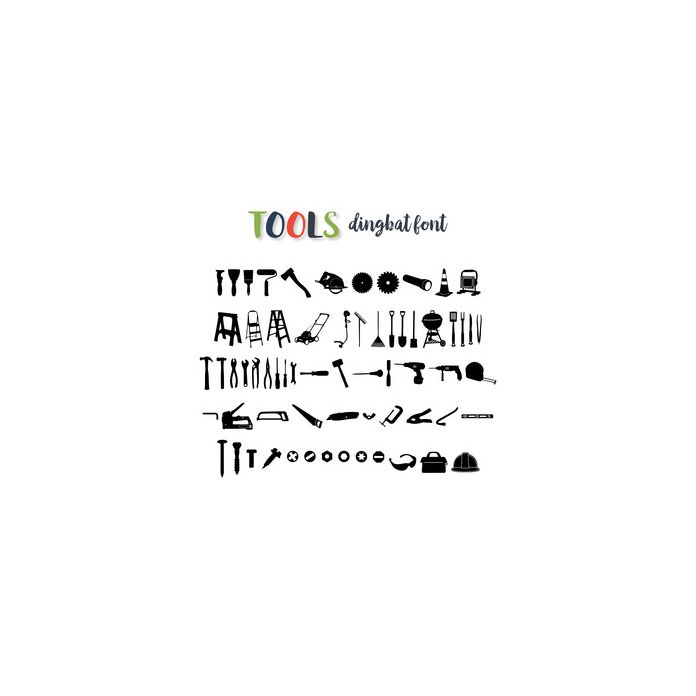
tools dingbat font
This dingbat font contains a variety of 65 tools including Carpentry, Household, Grilling, and Lawn Equipment.
ArtistJamie Lane Designs